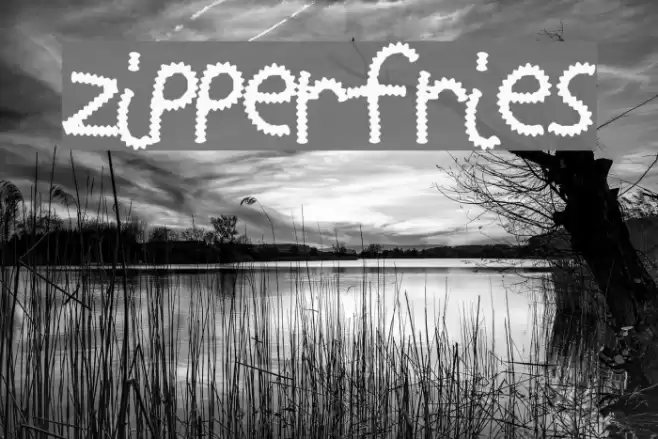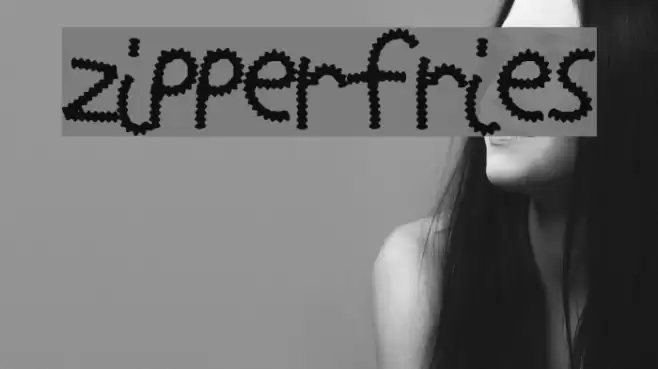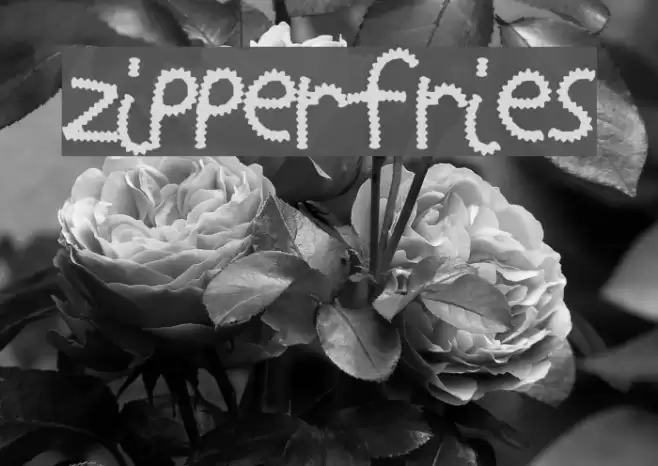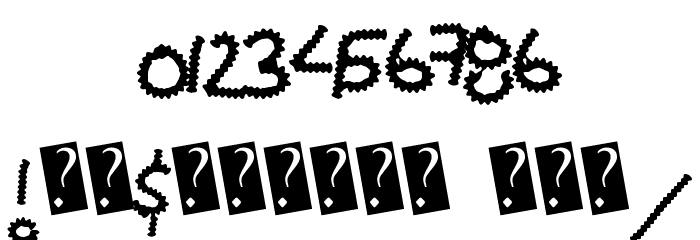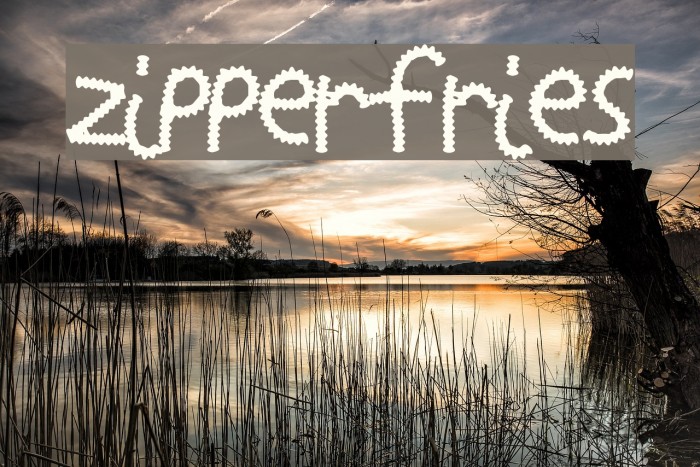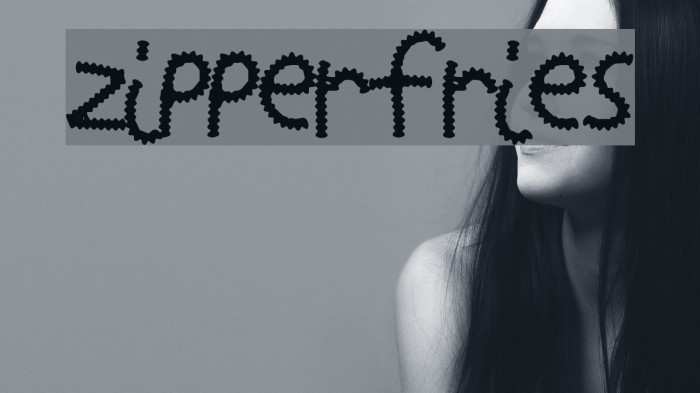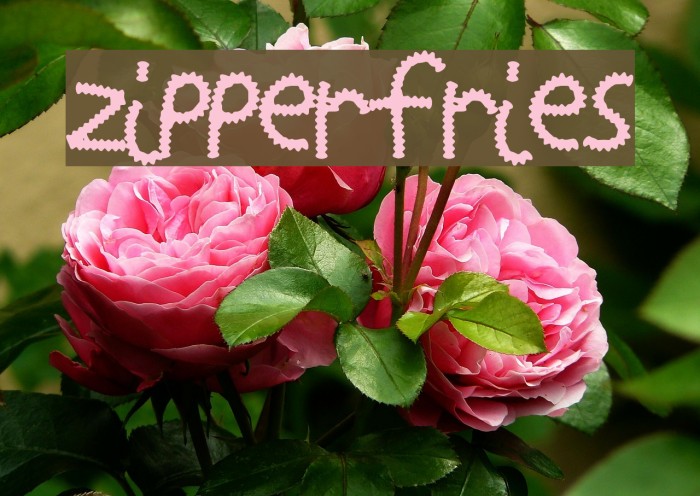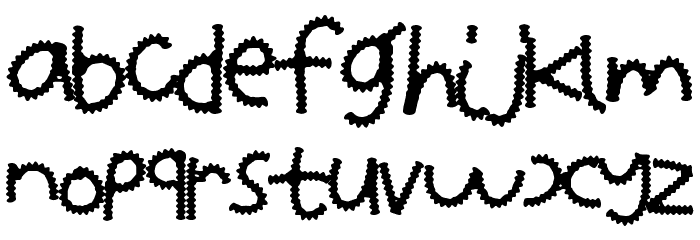
ZipperFries Font
ZipperFries Description
This font features a playful and unique design, characterized by its zipper-like edges that give each character a textured appearance. The letters are rounded and slightly irregular, adding to the whimsical and informal feel. The uppercase and lowercase letters maintain a consistent style, with the lowercase letters being slightly smaller in size. Numbers and special characters follow the same design principles, ensuring a cohesive look across all elements. The font's distinct style makes it stand out, making it suitable for creative and fun projects.
A playful, textured font with zipper-like edges and rounded, irregular characters from Cartoon fonts.
- Overall Style: Whimsical